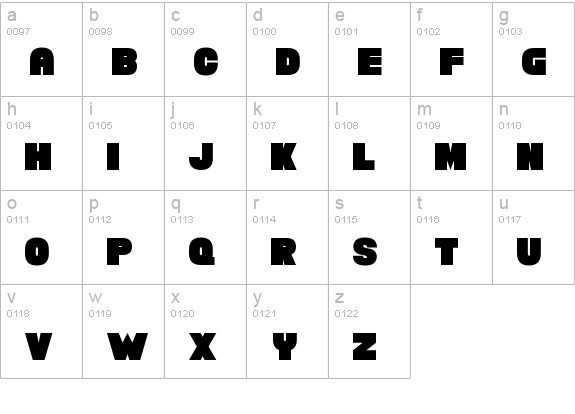
Chunky Funks font is a playful and vibrant typeface that exudes fun and energy. With its bold and chunky letterforms, this font is perfect for making a statement in your designs. It is ideal for titles, headlines, and any project that needs a touch of personality.